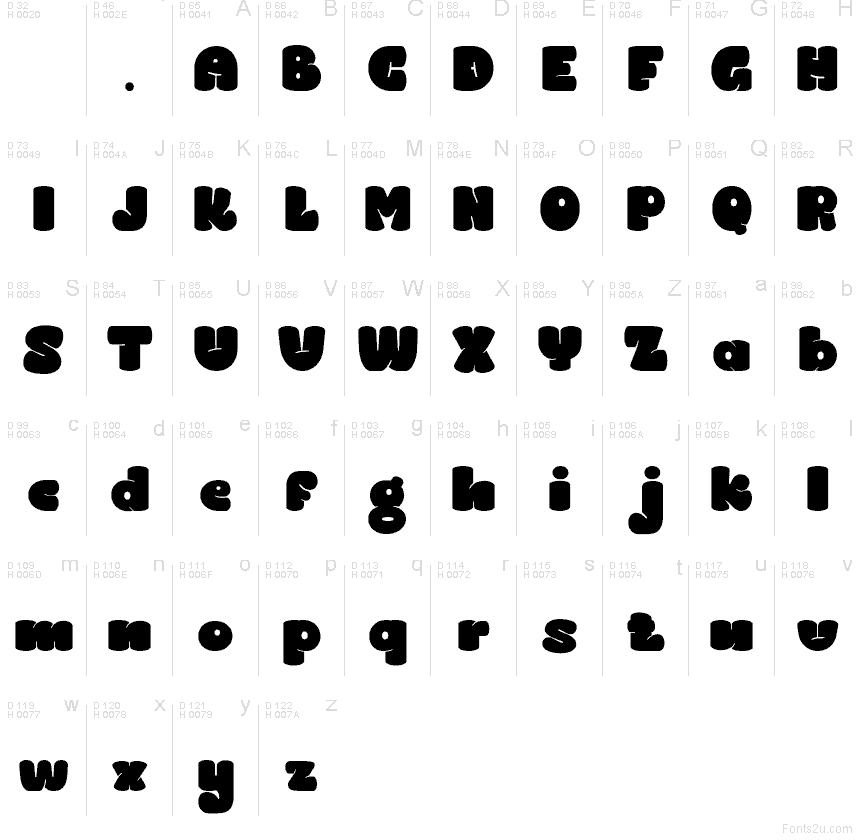
GREEN OCHA Regular
Green Ocha font by Achmad Yani of Flawless and co. is a free cartoon display typeface with chubby, squishy letterforms that look like they’ve been puffed up with air. The rounded shapes, tight rhythm, and soft corners give it a bouncy, snackable energy that feels friendly and approachable rather than loud. It reads like big foam letters you could squeeze, making it great when you want instant fun without feeling messy or chaotic.
Using Green Ocha, you can bring that playful punch to kids’ packaging, snack or drink branding, YouTube thumbnails, game titles, party invitations, and bold social graphics. The sturdy forms hold up at large sizes, so don’t be afraid to go oversized for logos and headlines. This free font pairs nicely with a clean geometric sans for body copy—let Green Ocha handle the big, bubbly moments while the simpler type keeps everything readable.